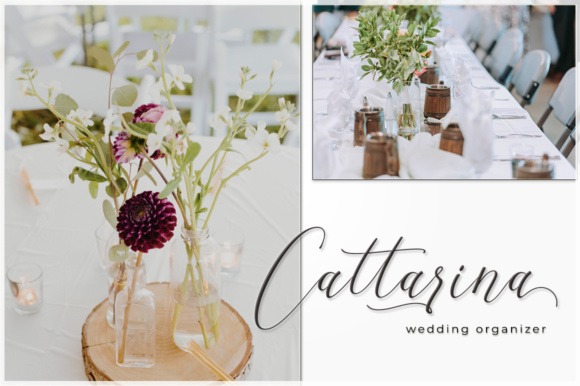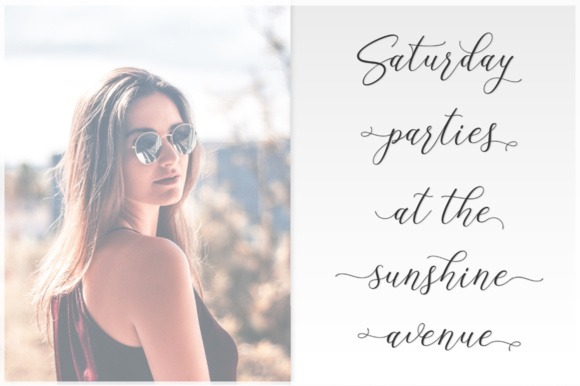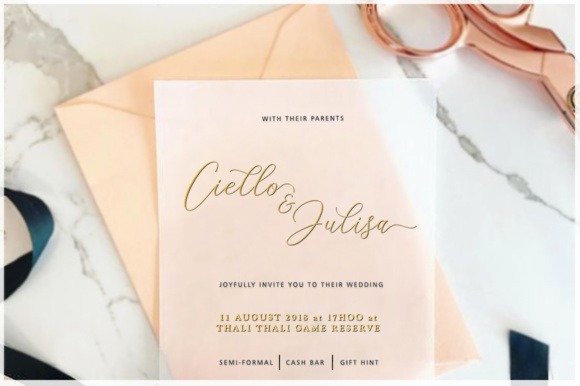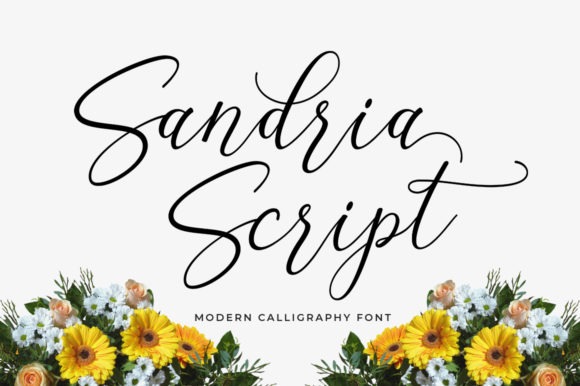
Sandria Script Font
If you’re looking for a script typeface to attract your audiences or customers then we’ve got the font for you! It’s a sweet calligraphy font, casual and dynamic with a dancing baseline, This font can be used easily and simply, perfect for Branding, Logos, Greeting Cards, Wedding Stationery, Quotes etc.